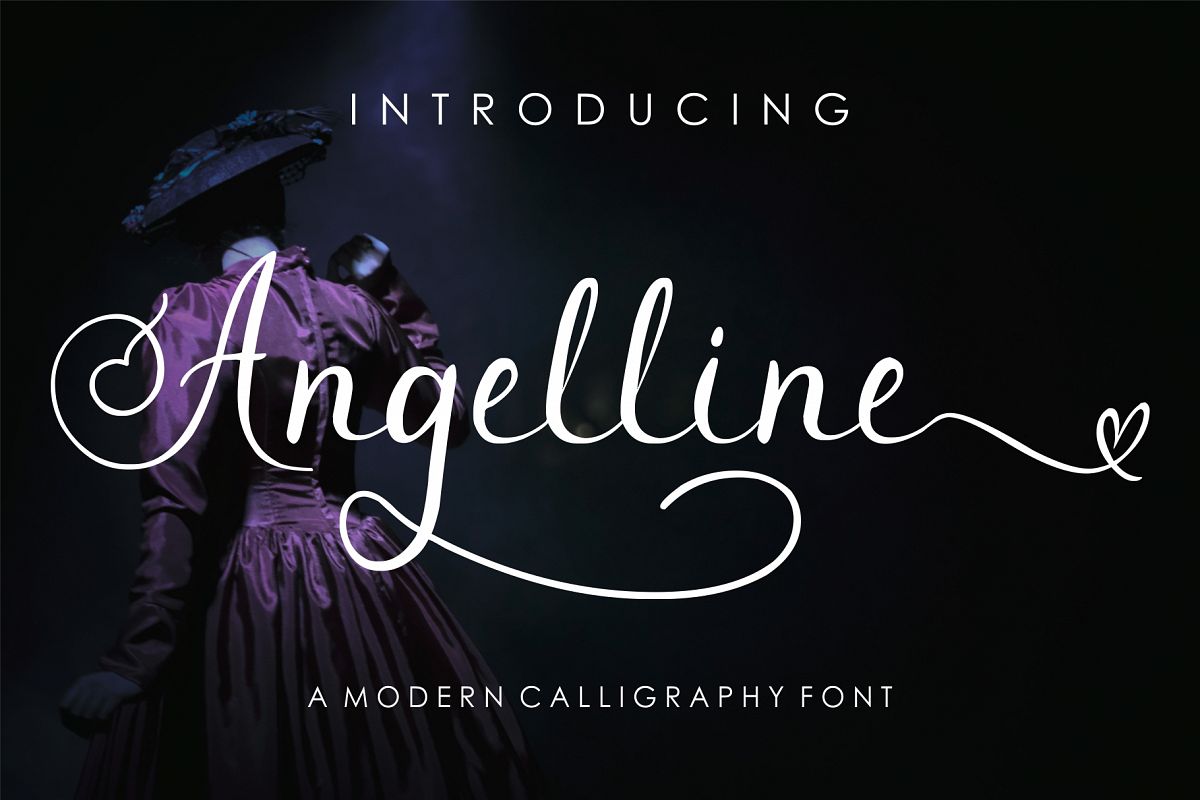
Angelline Modern Calligraphy Font
Angelline-Regular
Angelline is a romantic font with amazing alternatives and swashes that will add an elegant and luxurious touch to your designs.